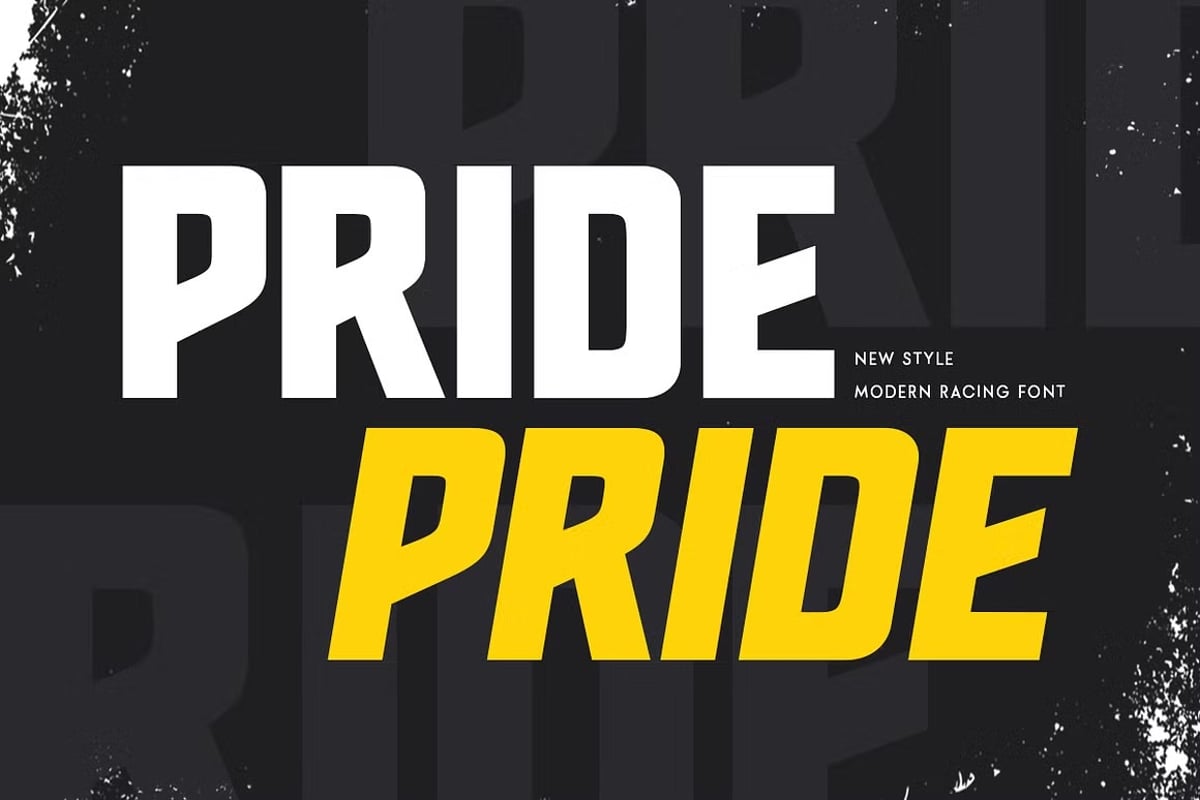
Pride - Free Minimalist Racing Sport Font
PRIDE delivers bold minimalist racing typography designed for high-impact sports and action projects. This racing sport font was crafted specifically for logos, film titles, action posters, match designs and standout typography that demands attention. Perfect for sports, futuristic and action themes, PRIDE adds bold modern style to headlines and key messaging for sport, technology, action, and fighting projects. PRIDE Minimalist Racing Sport Font includes: Creative characters engineered for opti...